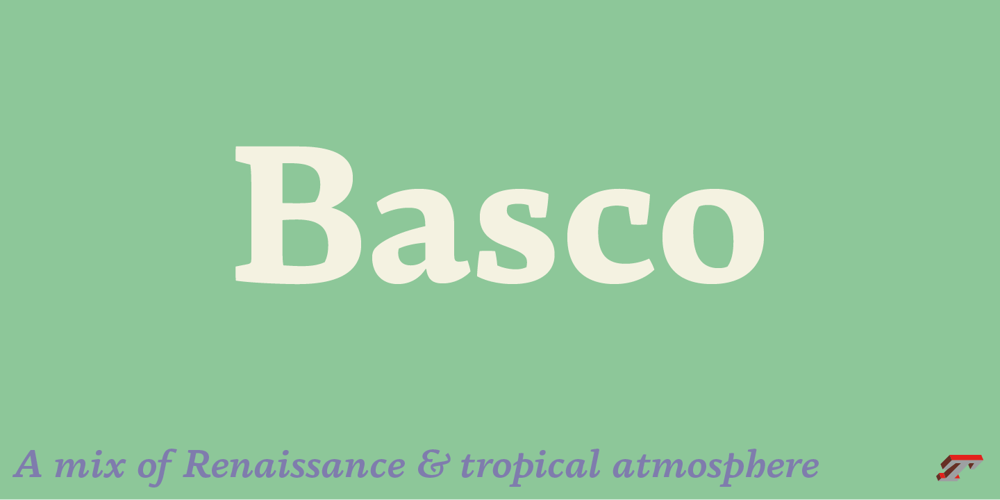
Basco Std Font Family was designed by Bruno Mello and published by Typofonderie. Basco Std contains 8 styles and family package options. A mix of Renaissance & tropical atmosphereBasco is an exploration of the Renaissance style, a period in which letterforms were informed primarily by hand writing. It is clearly a contemporary interpretation of calligraphic shapes forms.The serifs are subtly asymmetrical. Slightly curved arches on the n, m and u are noticeable, creating an interesting tension in the text. Bruno Mello’s distinctive style is most obvious in his mastery of super fluid curves. It is a result of his extensive exploration of calligraphic forms, their tensions and dynamics, mixing angularities with curves. The roman weights include alternate swashes, as well as initial and terminal glyphs. The italics, based on chancellery script, feature simple stroke endings, most visible on the s and c.➼ Basco minisite